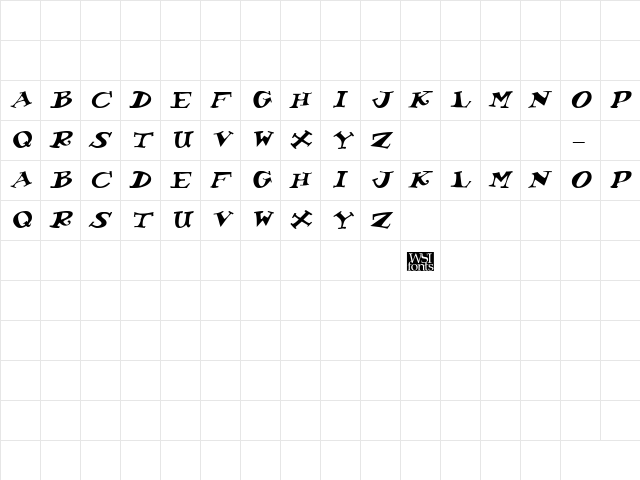
KoolKapsDisplayHvy Italic Font Preview
KoolKapsDisplayHvy Italic
Design Context for KoolKapsDisplayHvy Typeface
KoolKapsDisplayHvy brings ornamental detail and strong personality to headlines and identities, where visual impact matters more than quiet functionality. The slanted form adds forward momentum and visual energy.
Font Pairing: Pair with a clean neutral sans-serif for body copy to let KoolKapsDisplayHvy's character lead without overwhelming the composition.
Pro Tip: Treat KoolKapsDisplayHvy as the centrepiece of your typographic hierarchy. One strong heading set in a decorative face can carry an entire layout.